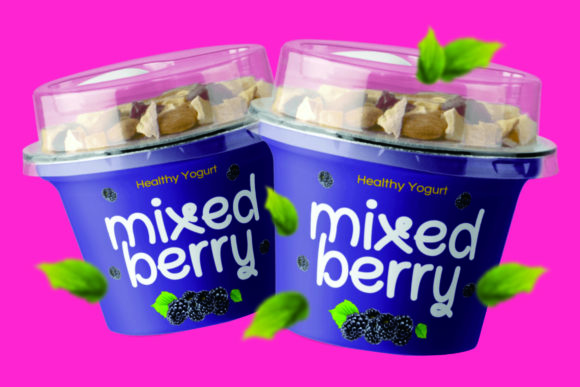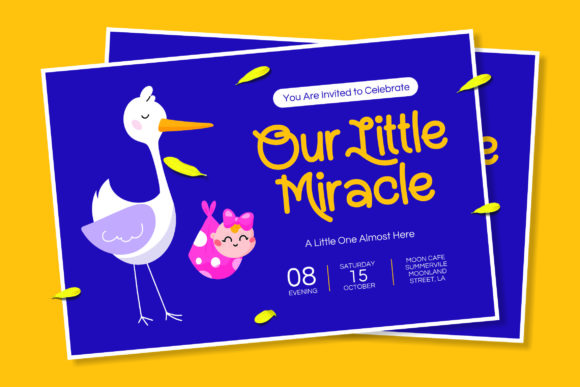
About Gregory Font
Gregory is a cute handwritten font. It embodies playfulness and authenticity and is the perfect choice for any children activity or school project. Add this chunky lettered font to your designs and notice how it makes them come alive!